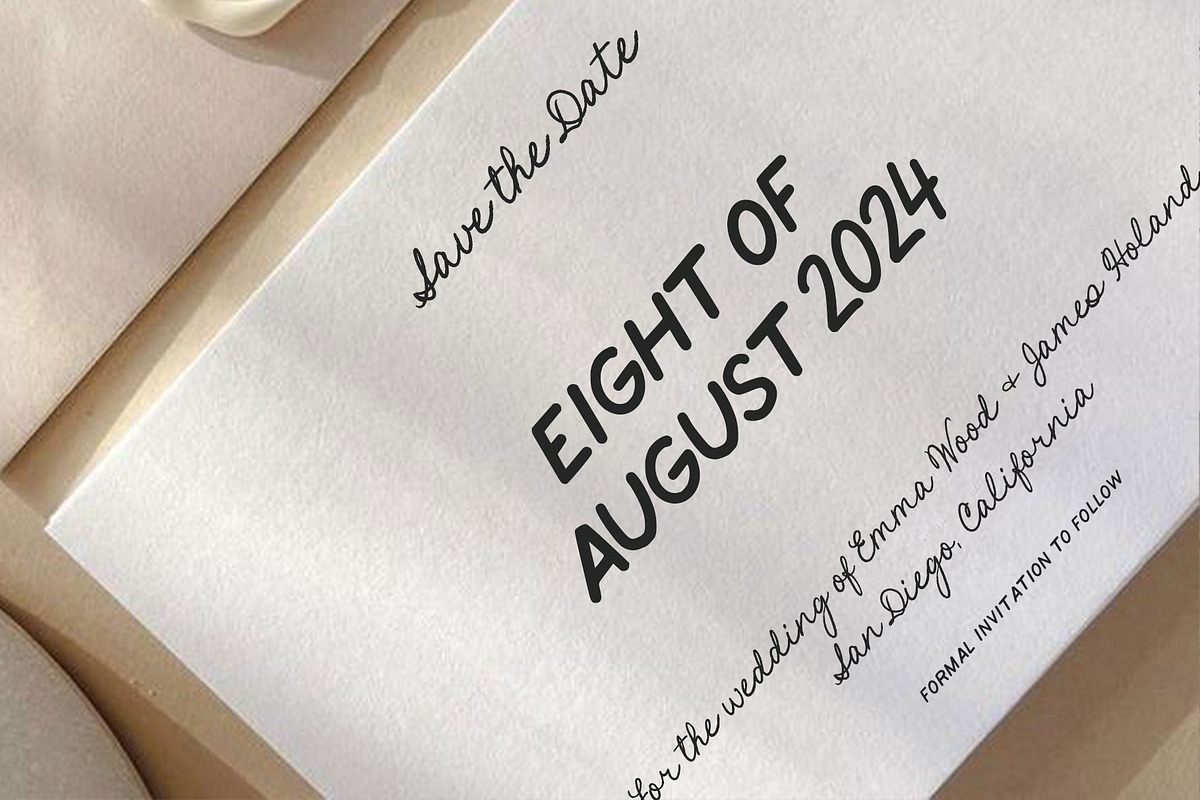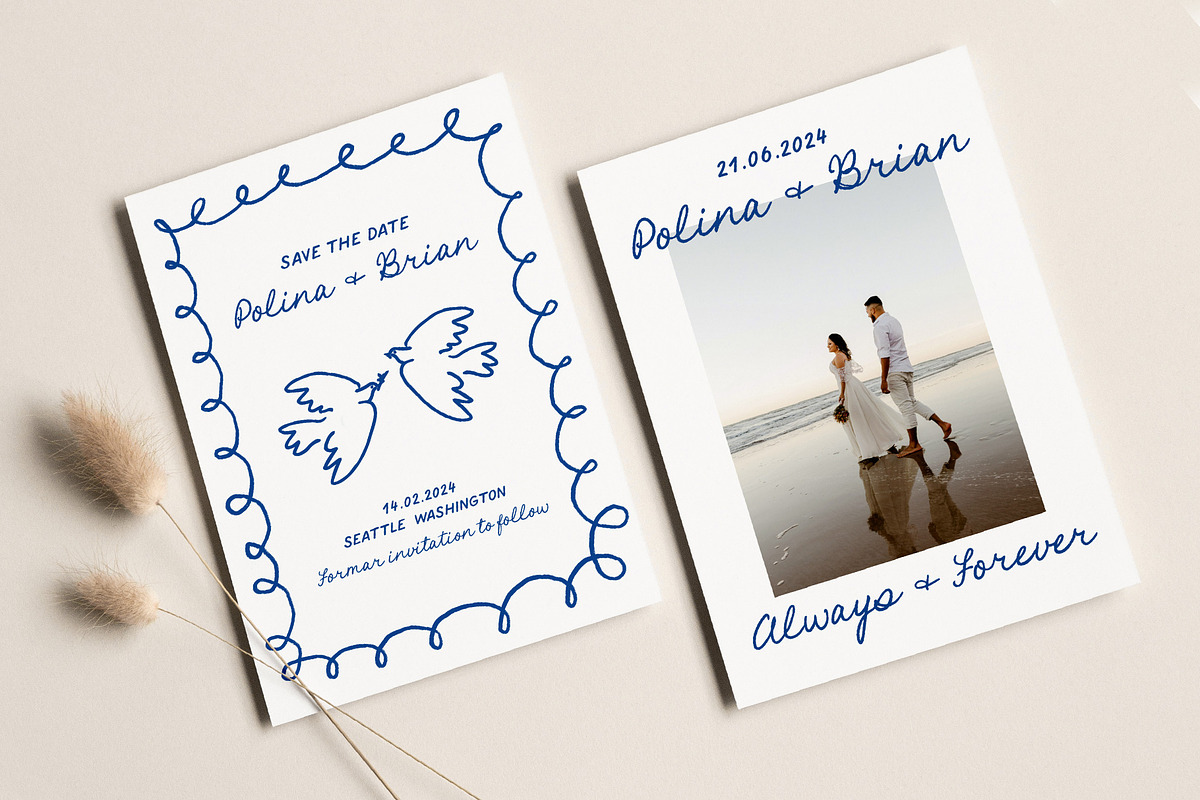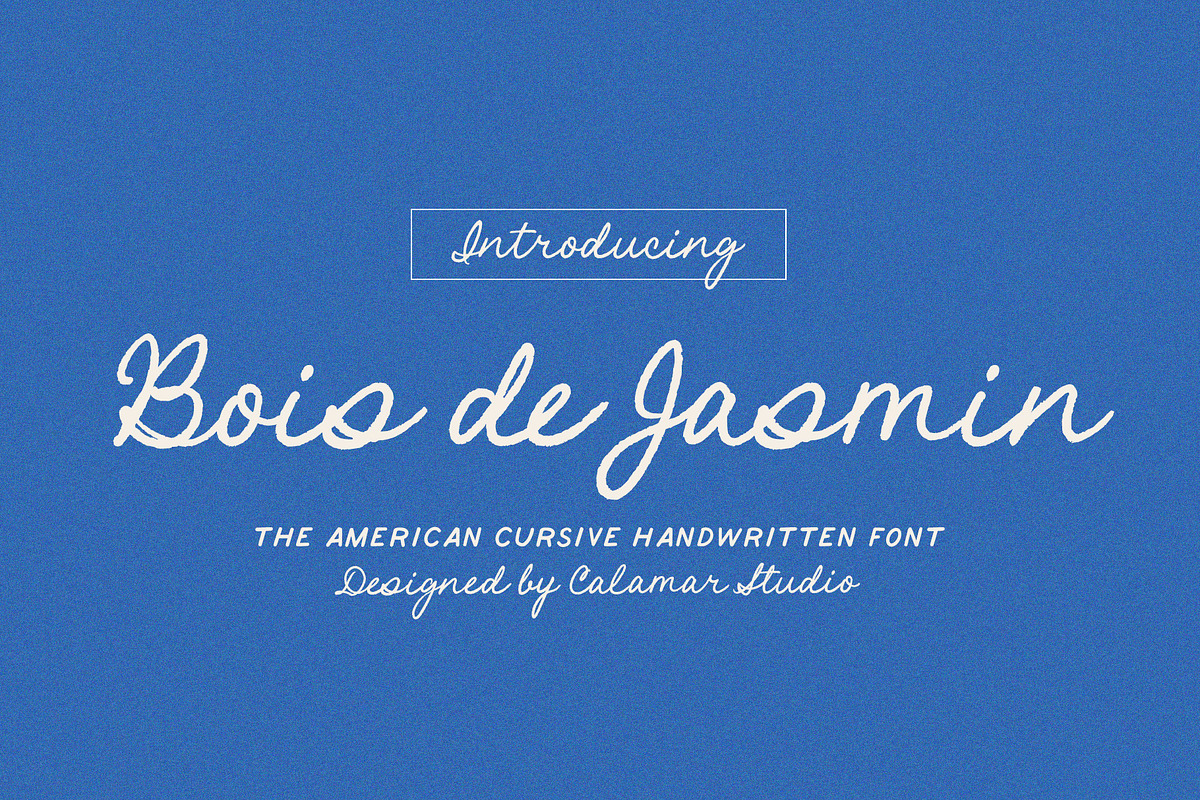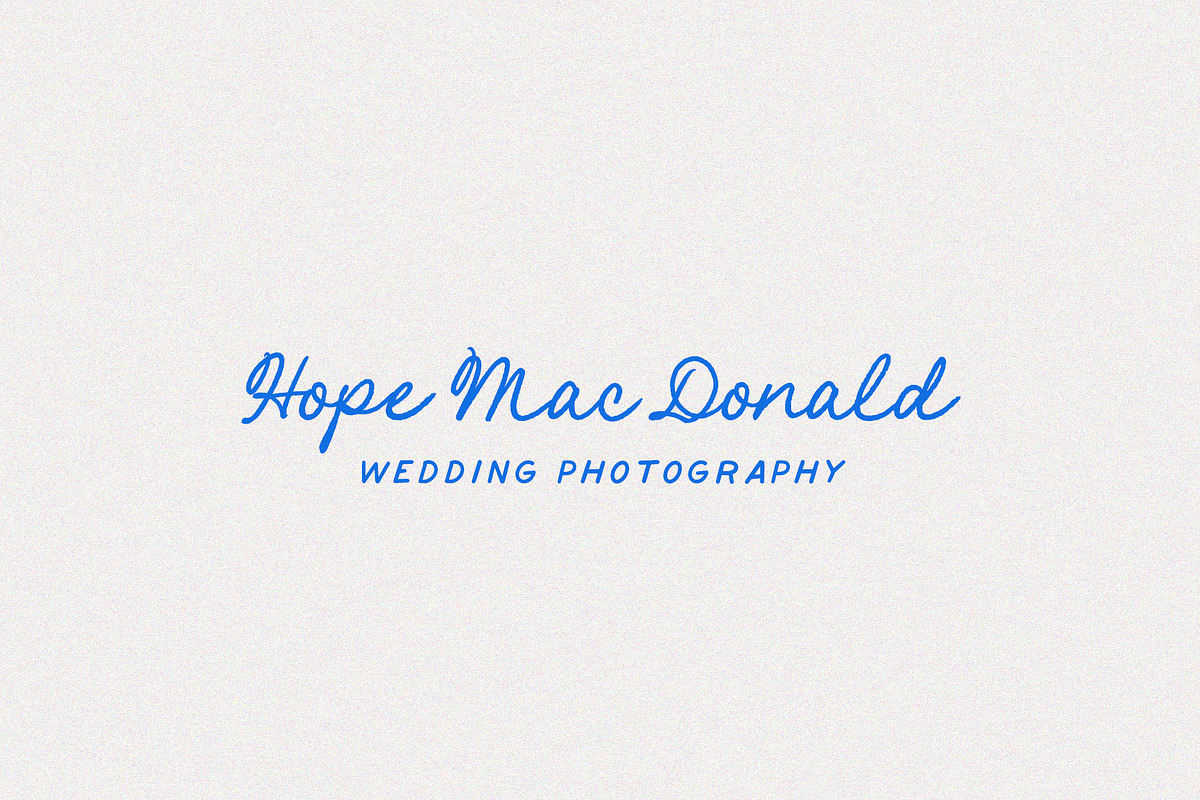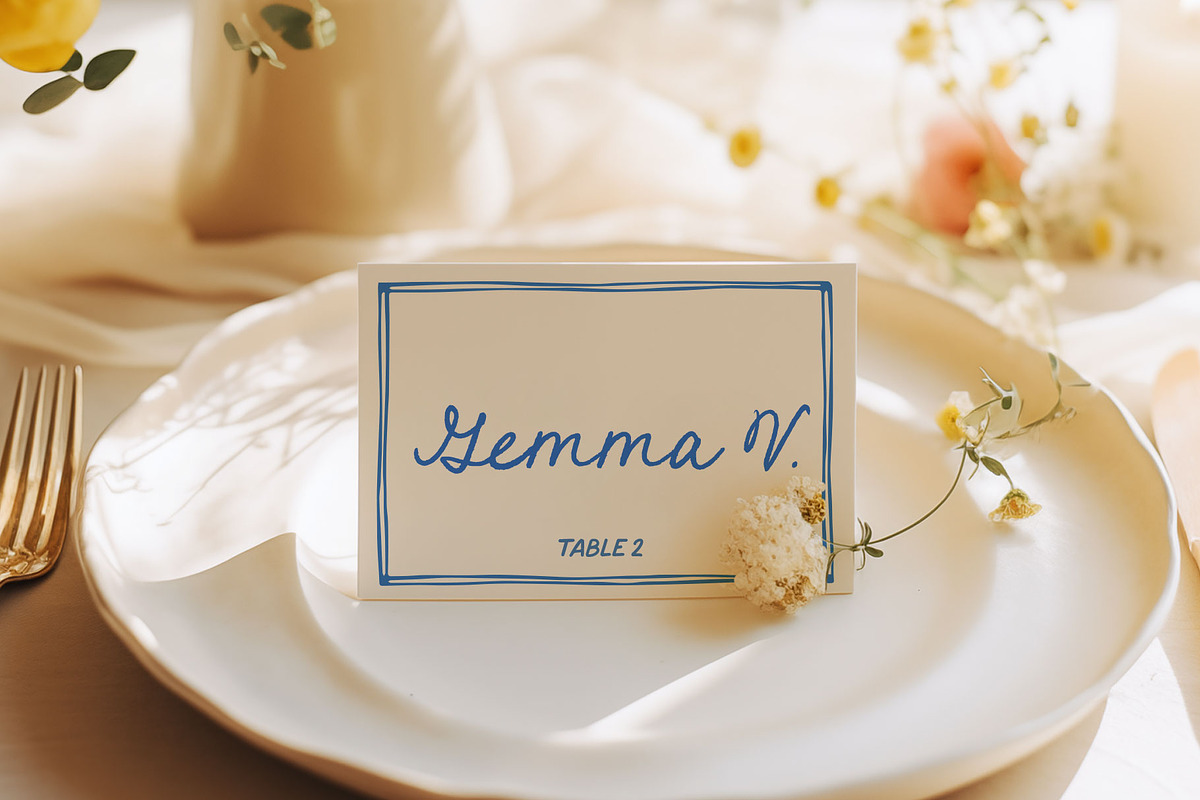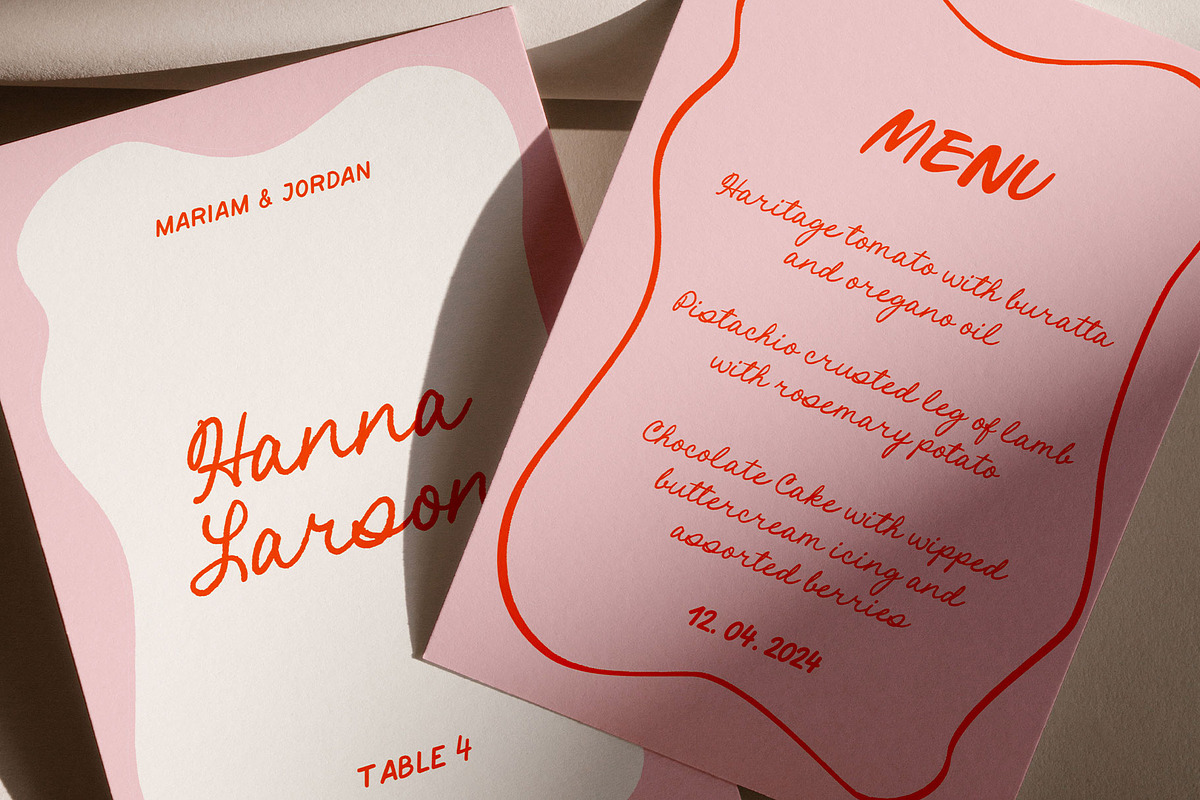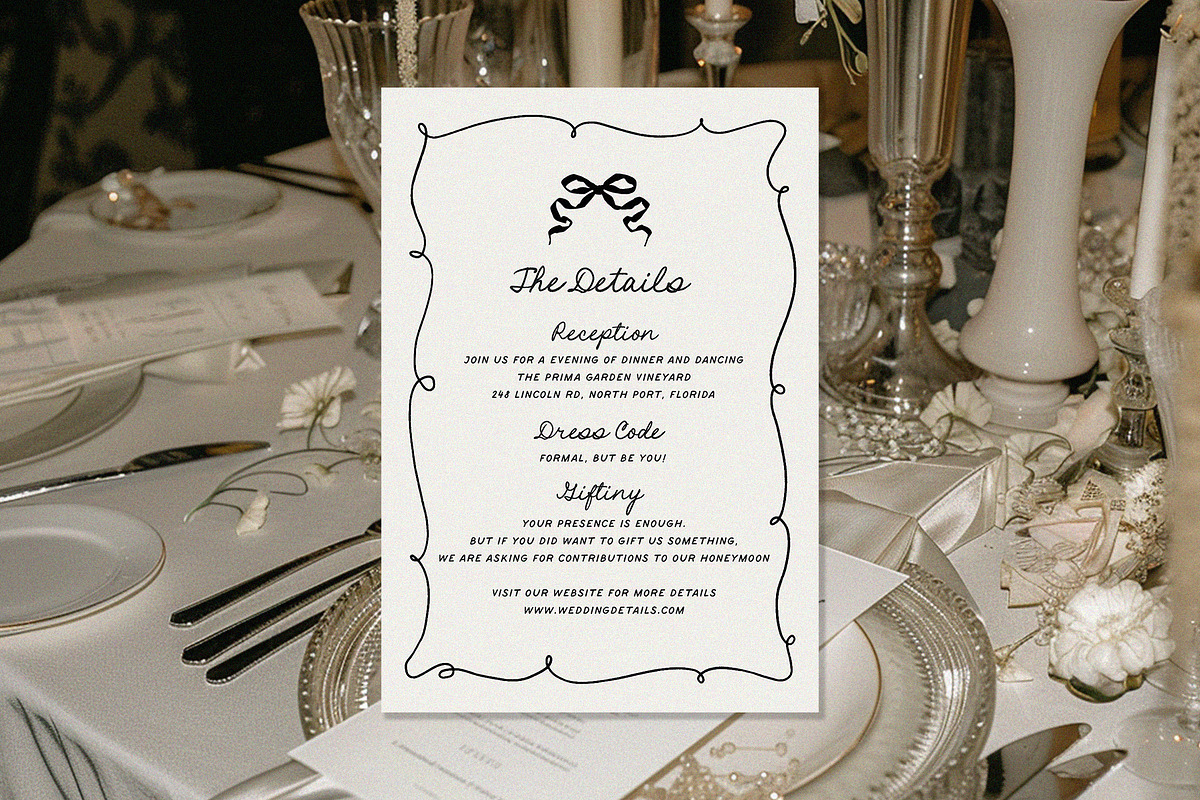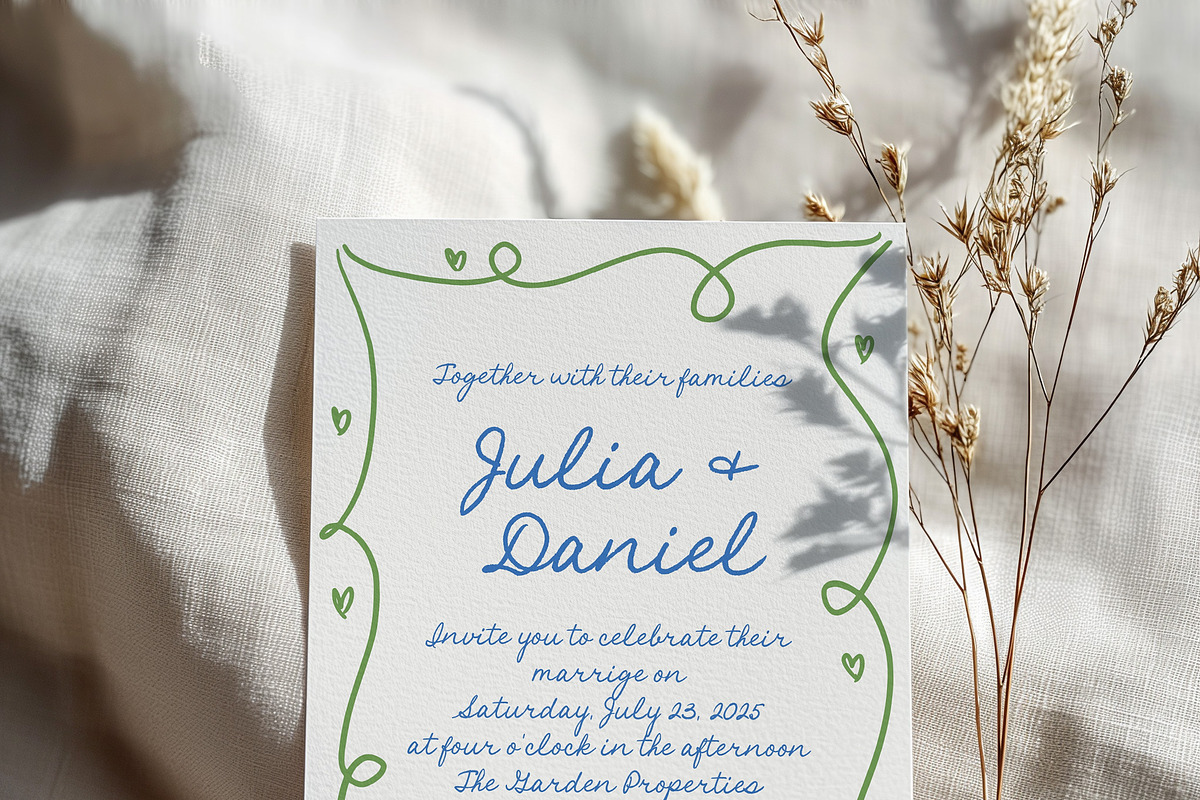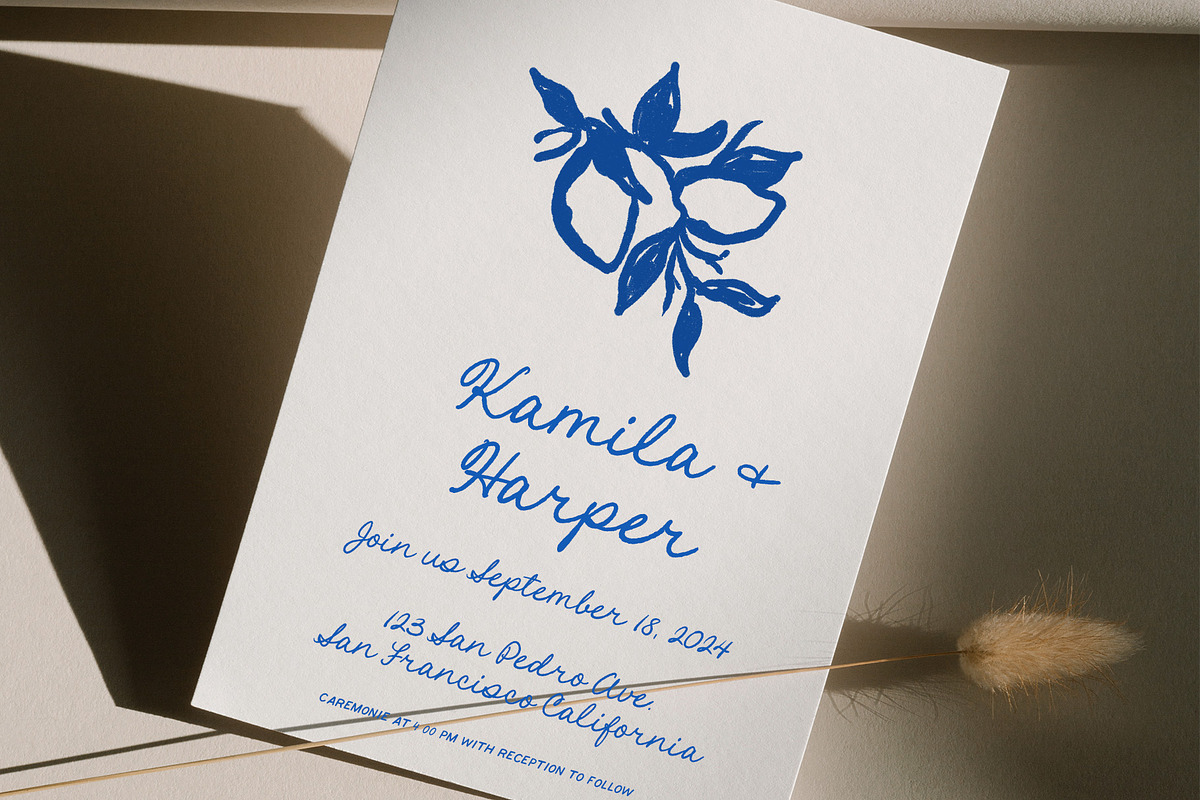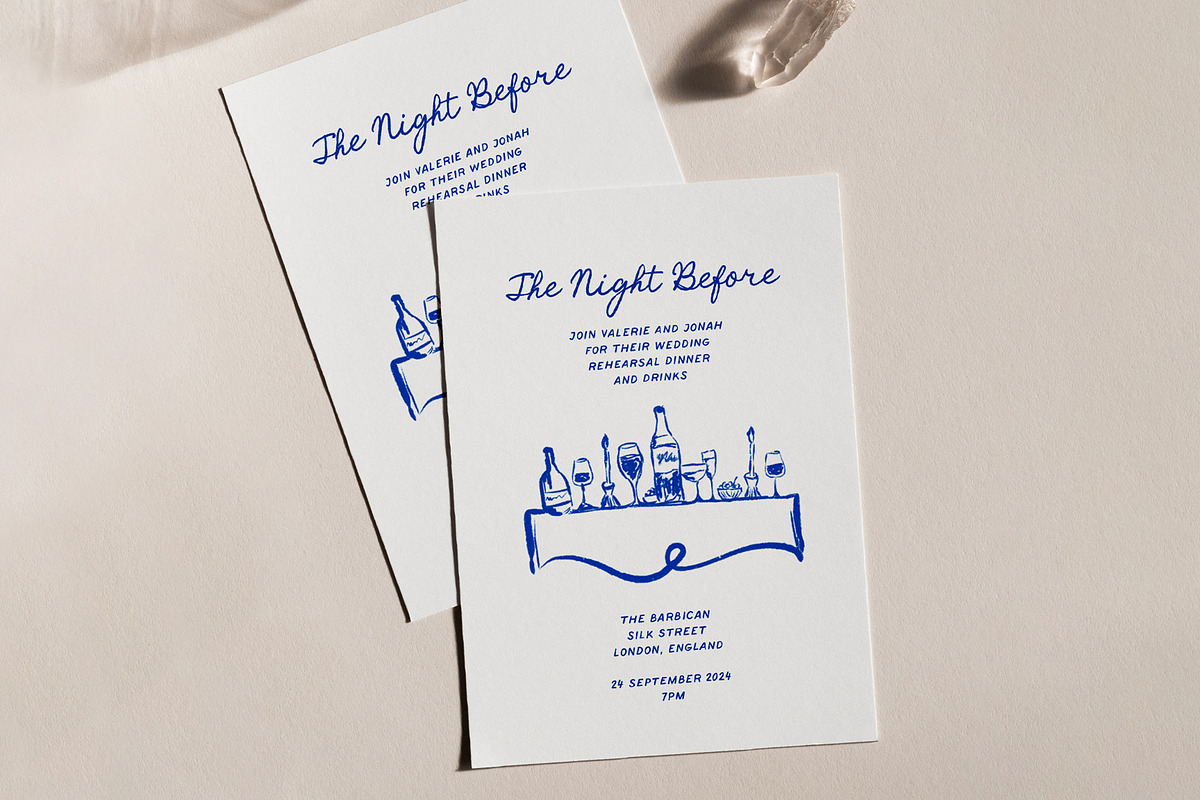
Bois de Jasmin Wedding Font Duo
Handwritten Font Duo in American cursive style - Bois de Jasmin.
It will look great for wedding invitations, greeting cards, stickers, instagram posts, quotes, logo. You don't need any special programs to use this font. All is super easy.